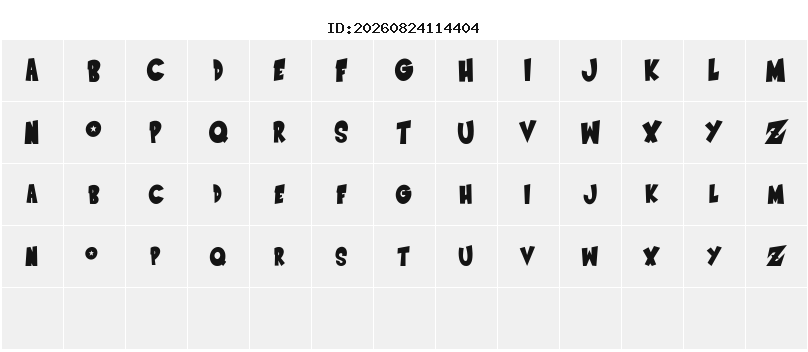
Saiyan Sans - Right Oblique Preview
• Font Name: Saiyan Sans - Right Oblique
• Full Font Name: Saiyan Sans - Right ObliqueRegular
About Saiyan Sans - Right Oblique.ttf
Saiyan Sans - Right Oblique.ttf is a modern, elegant sans-serif font designed for ultimate readability and visual harmony. Perfect for branding, headlines, web design, and print materials.